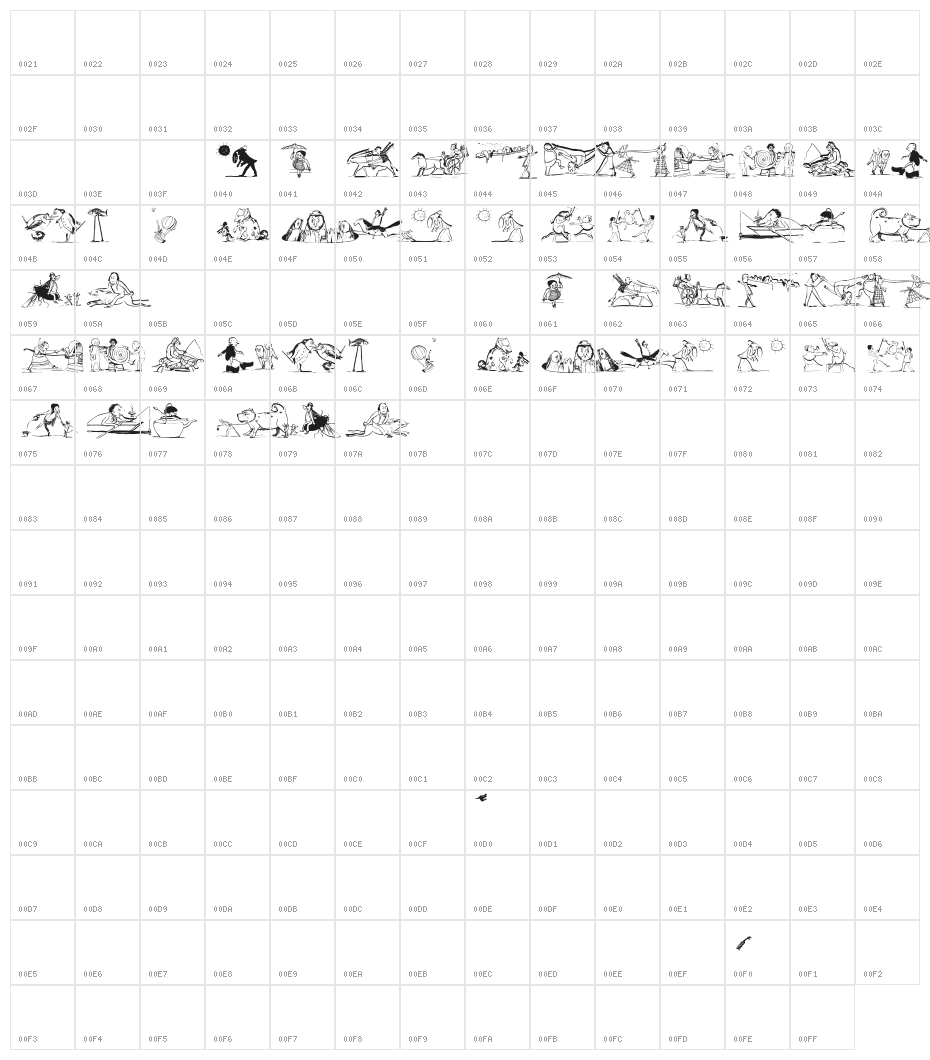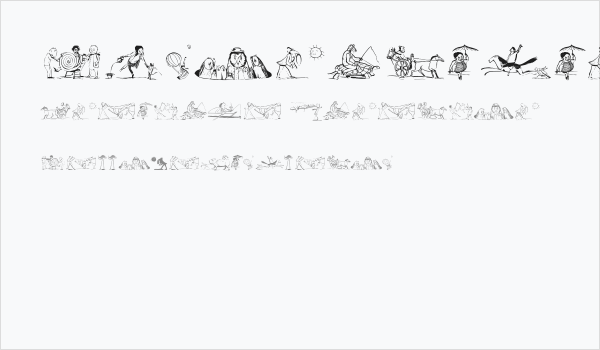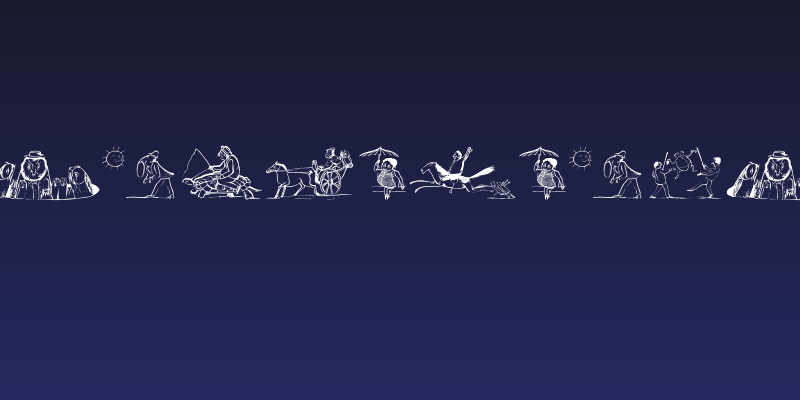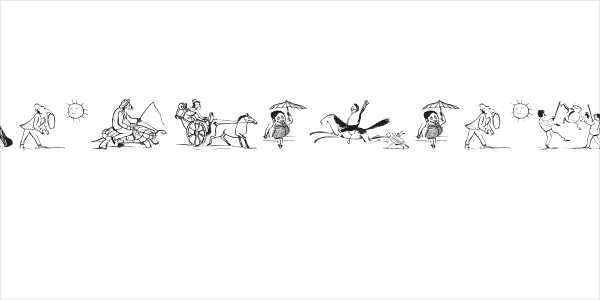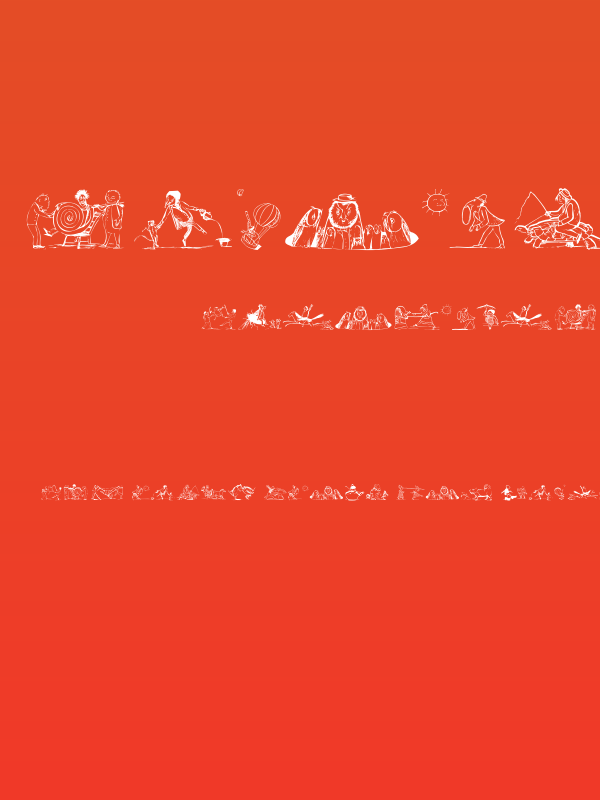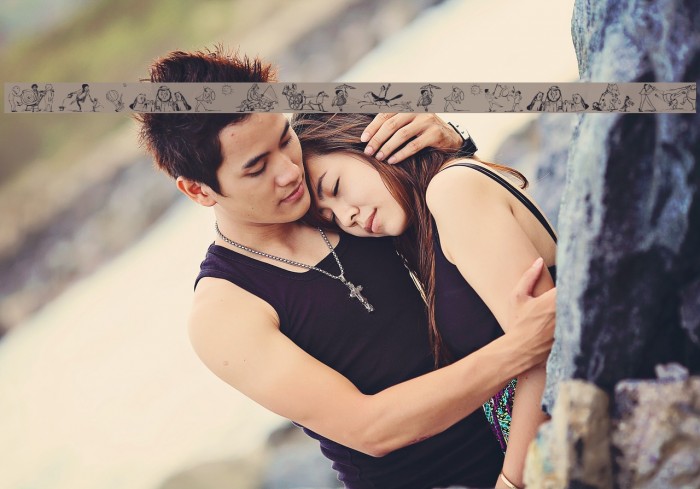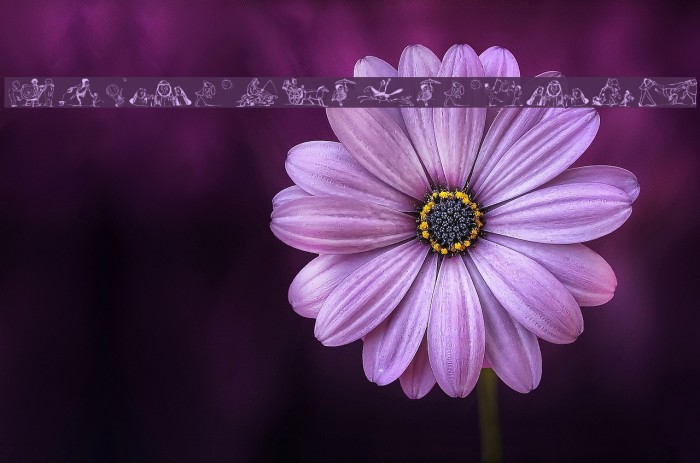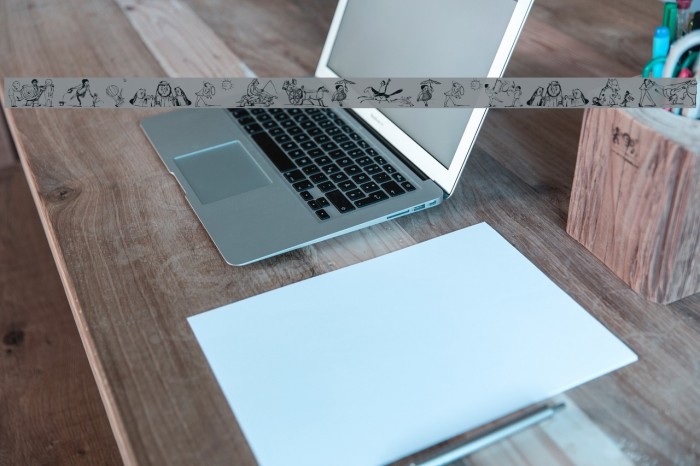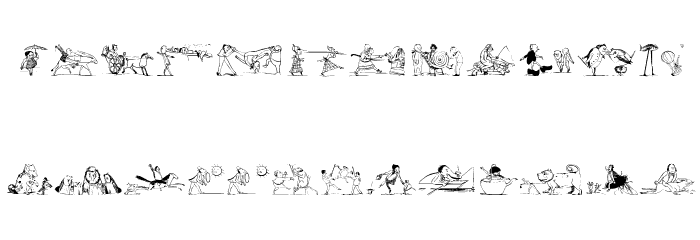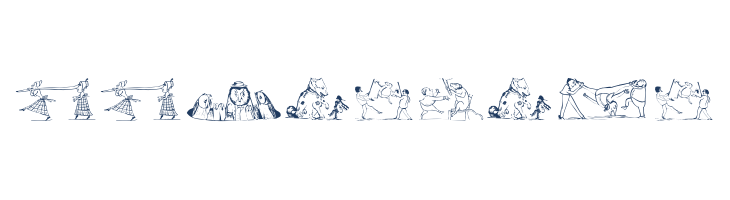
HumoricaPartOne Font
HumoricaPartOne Description
A whimsical and illustrative font composed of humorous cartoon scenes, each character represented by a unique drawing featuring people and animals in playful, exaggerated situations. The style is hand-drawn with fine lines and a sketch-like quality, emphasizing humor and storytelling rather than traditional letterforms.
| Overall Style | Humorous, Playful, Illustrative |
| Use Case | Logos, Posters, Titles, Decorative purposes |
| Proposed Projects | Children's books, comic strips, playful branding, greeting cards, novelty posters. |